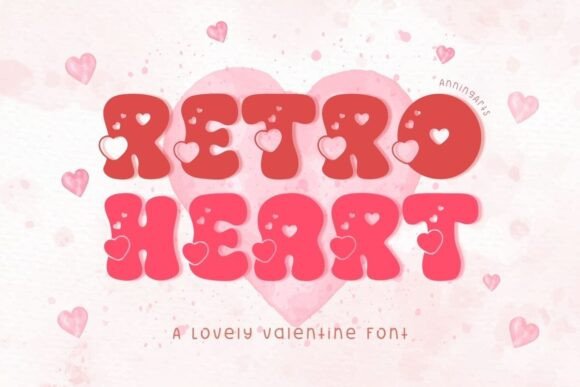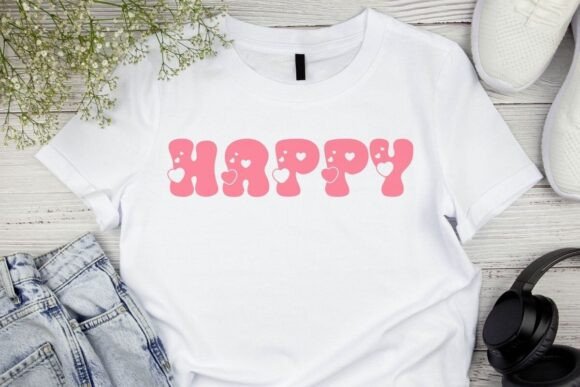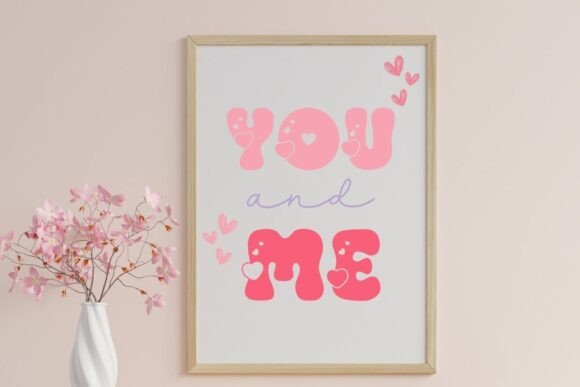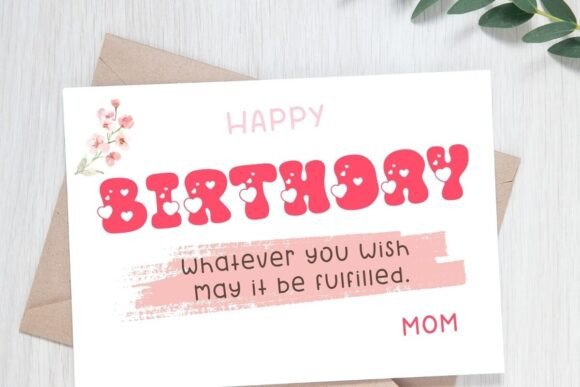
Retro Heart Font: A Playful Display Font for Valentine’s Day
About the Retro Heart Font
Elevate your designs with Retro Heart Font, a font that combines sophistication with readability. Infuse your projects with love using Retro Heart, a charming vintage-inspired font! Perfectly crafted for Valentine’s Day, weddings, greeting cards, or any celebration of love and romance.
Retro Heart’s playful vintage style is ideal for headlines, short text blocks on packaging, and greeting cards. It works exceptionally well in projects requiring a touch of nostalgic charm, such as branding for small businesses focused on handmade goods or vintage fashion. However, its decorative nature makes it unsuitable for body text or UI elements where readability is paramount.
Pairing Retro Heart with a clean sans-serif like Helvetica Neue for body copy provides excellent contrast and visual balance. For a more vintage-inspired feel, consider a complementary serif font such as Garamond or Playfair Display. A script font like Allura can add a touch of elegance to projects already using Retro Heart.
The overall personality of Retro Heart is undeniably charming and friendly, conveying a sense of warmth and approachability. Its slightly irregular letterforms enhance its vintage appeal without sacrificing legibility in shorter applications.
Retro Heart Font Usage Examples
Retro Heart Font Example